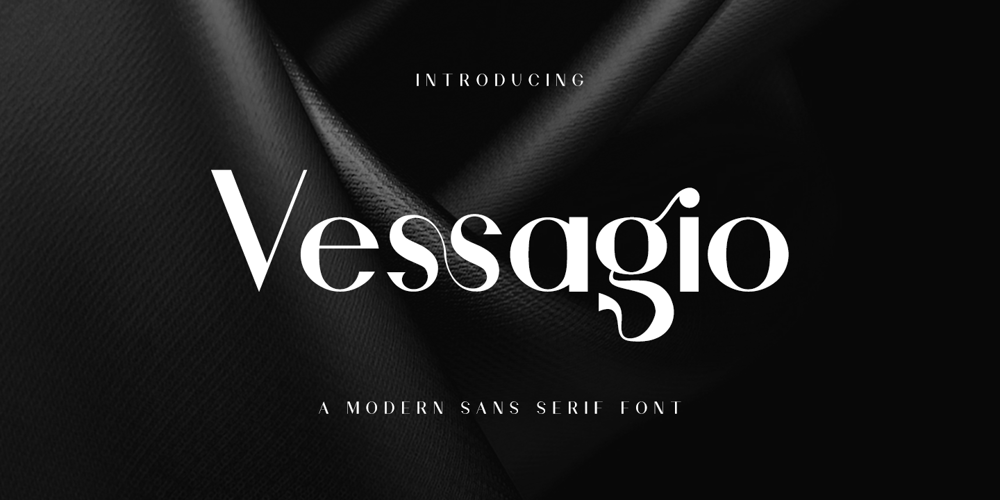
Vessagio Font Family was designed by Hayinah and published by Rockboys Studio. Vessagio contains 1 styles and family package options. Vessagio is an elegant and modern sans serif font. No matter the topic, this font will be an incredible asset to your fonts’ library, as it has the potential to elevate any creation.